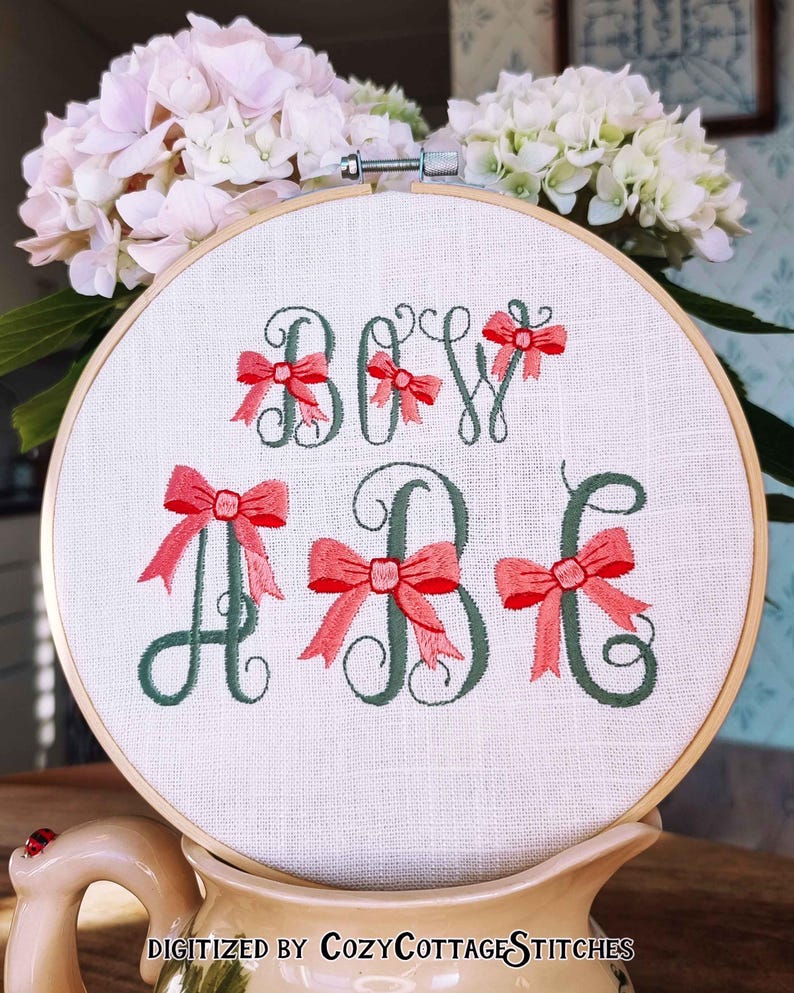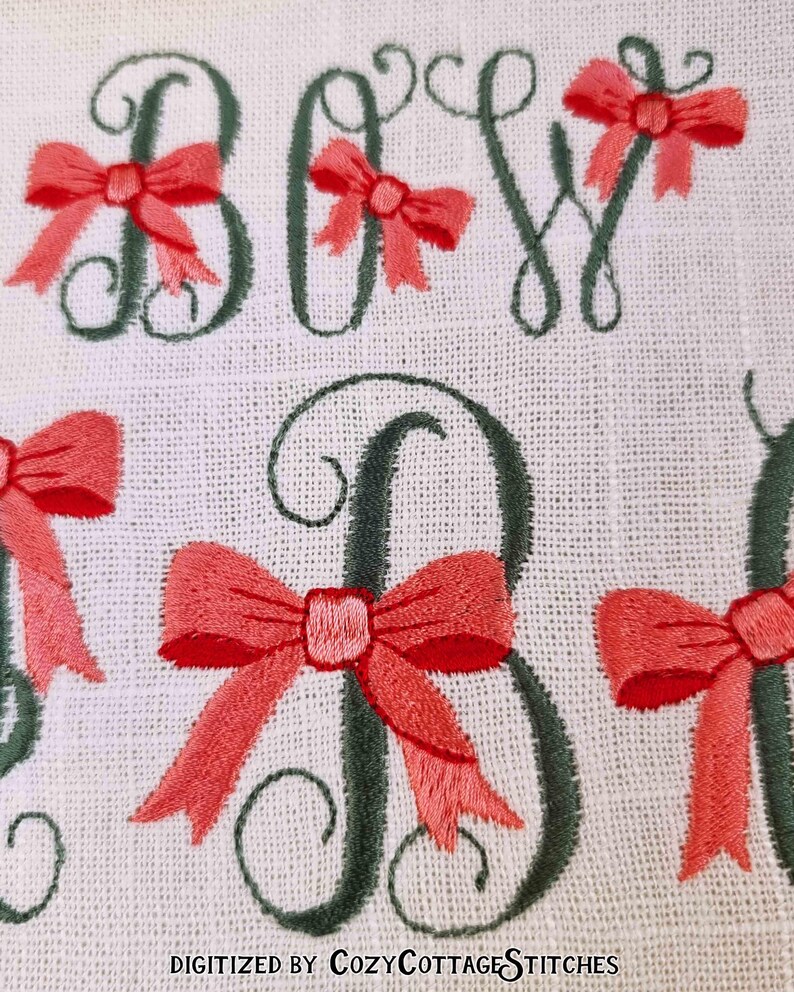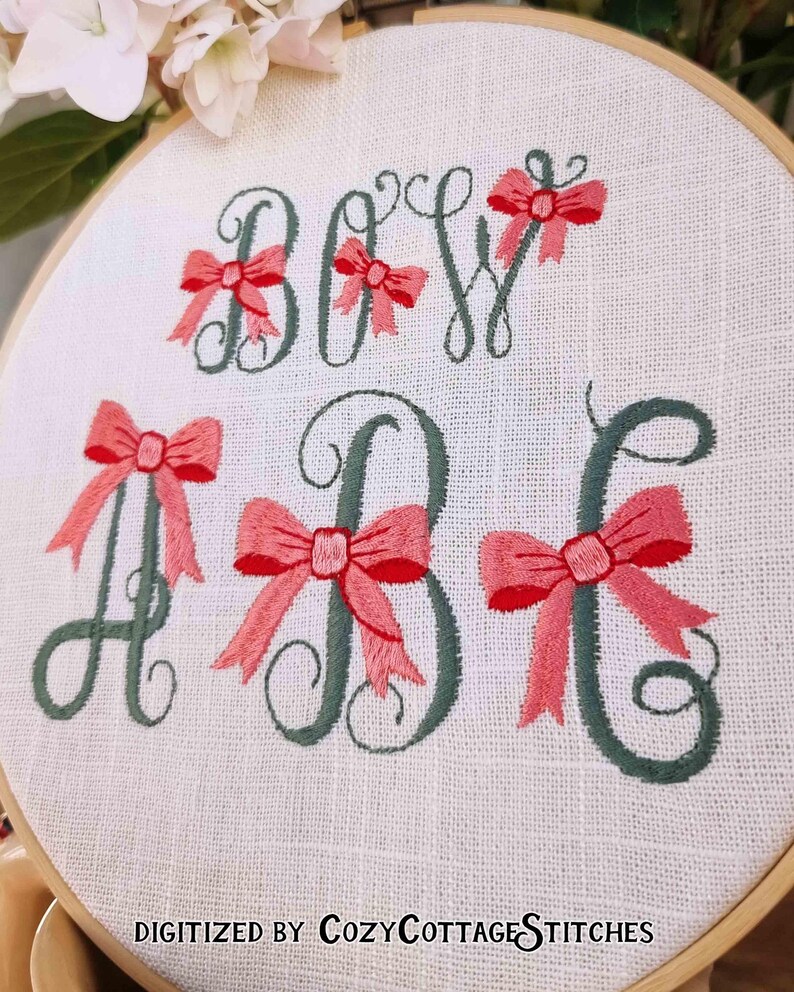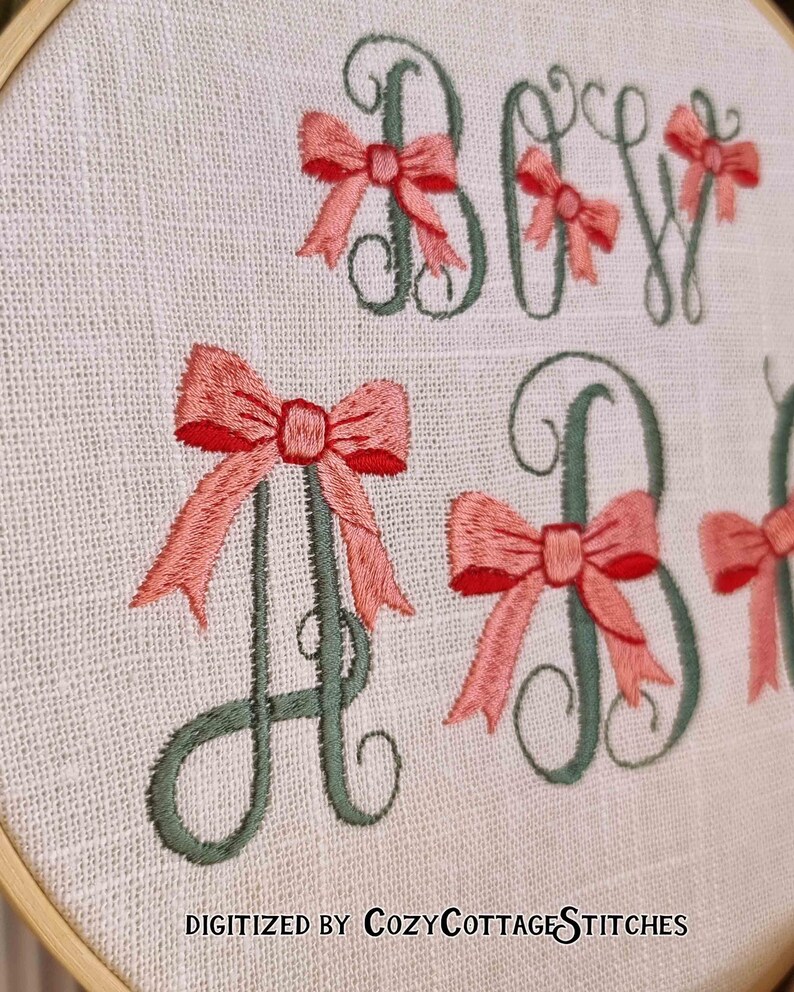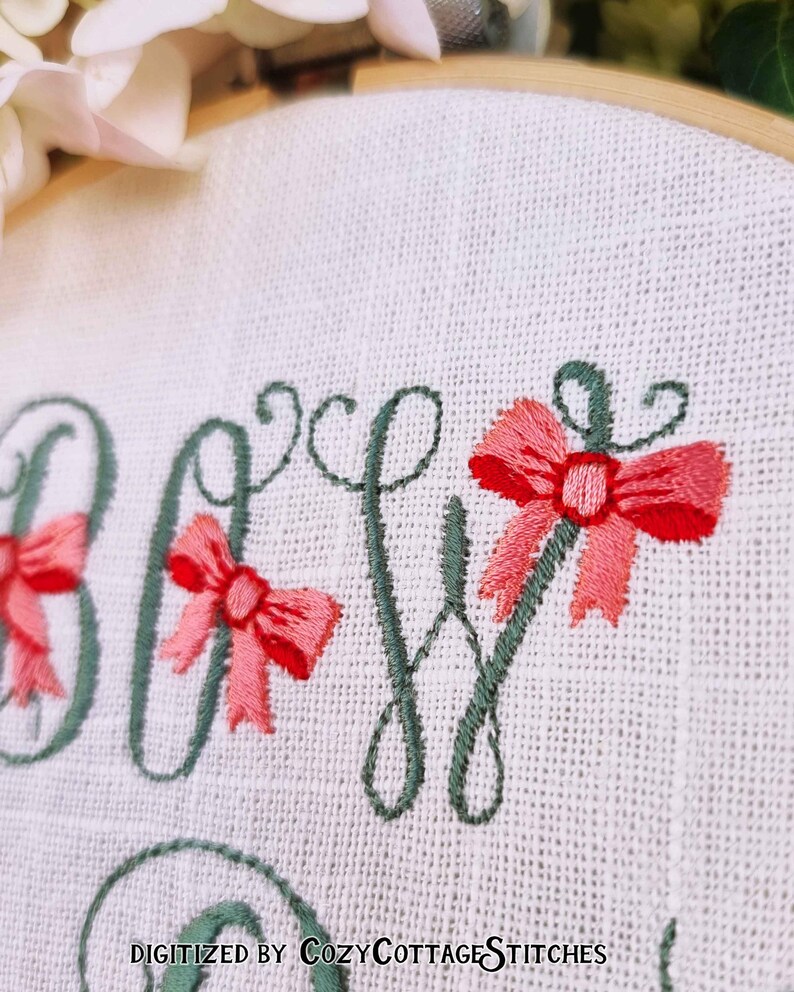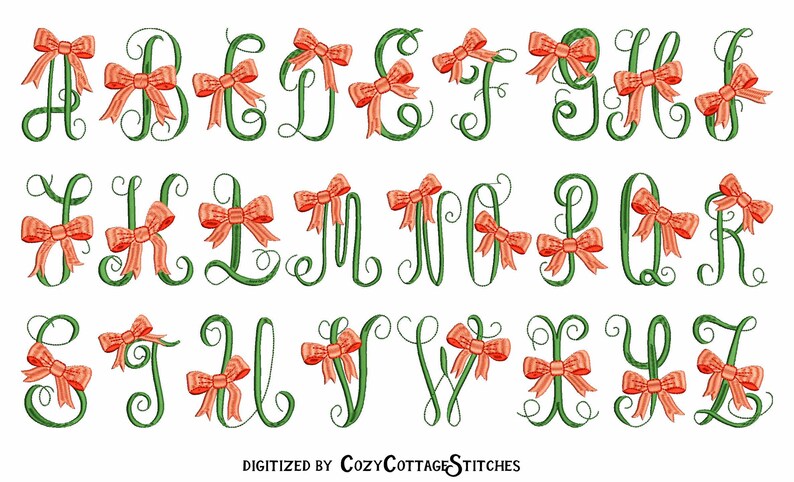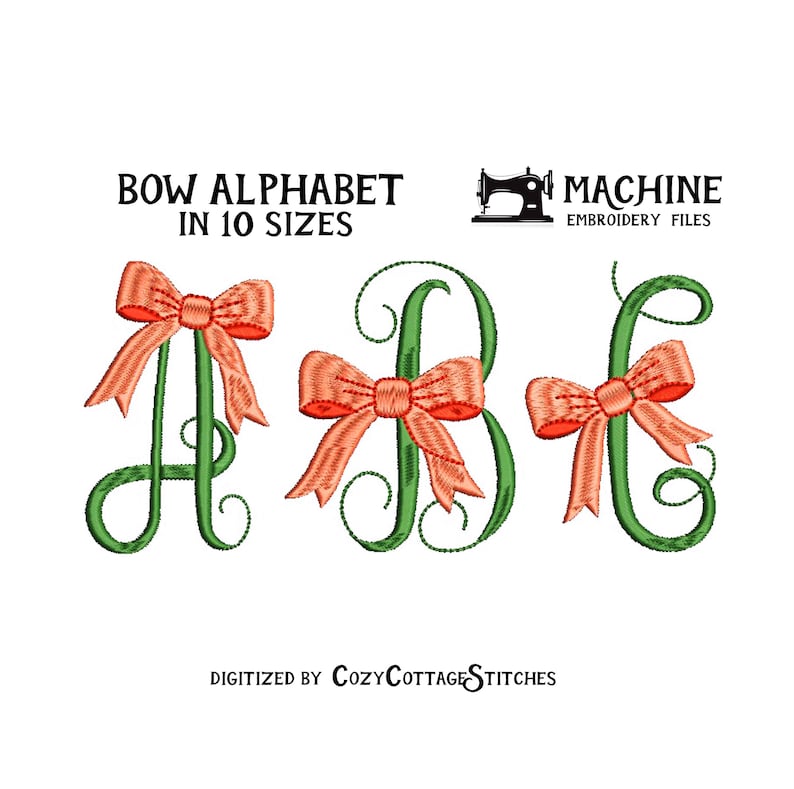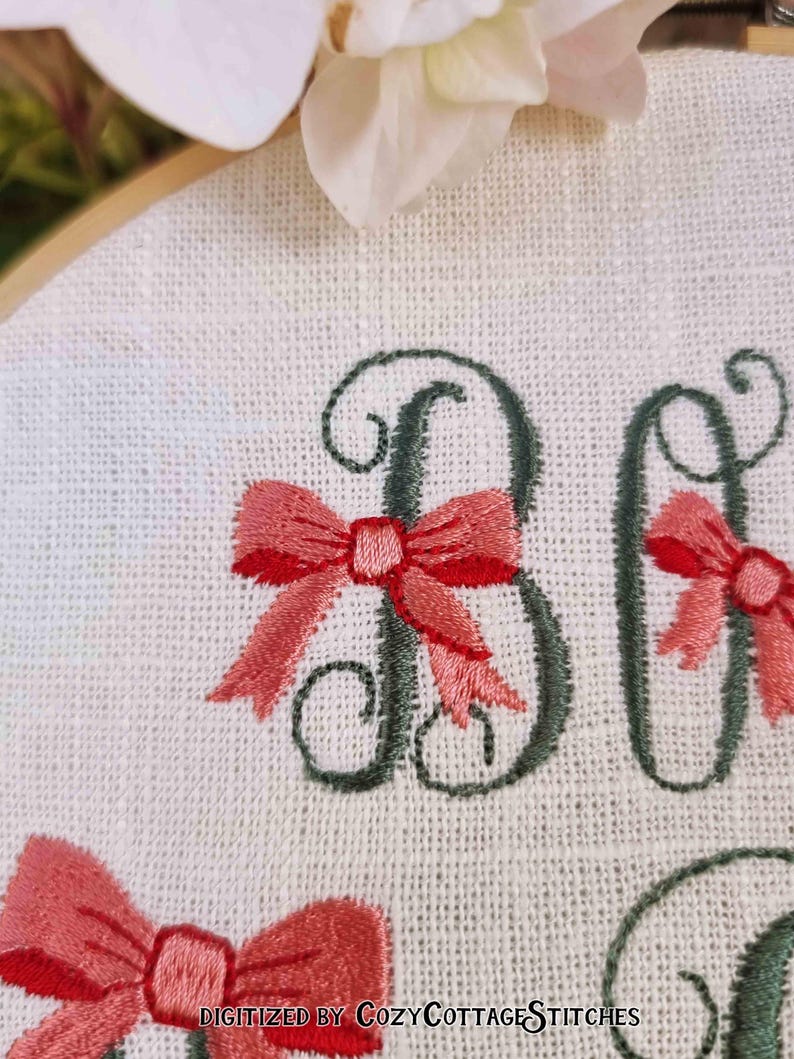
BOW FONT. 10 sizes. Coquette Uppercase Letters. ABC Alphabet. 4x4 hoops. Cute Tiny Mini 1,5" - 3.75" Digital Design Machine Embroidery File
Digital embroidery files for MACHINE embroidery. Beautiful and modern font with trending coquette look. The font comes in 10 sizes. It is manually digitized and looks a lot like hand-embroidery in formats DST, JEF, EXP, HUS, PES, VP3, XXX. Perfect for embellishing a t-shirt or a cap and quickly making a personalized elegant gift for someone special.